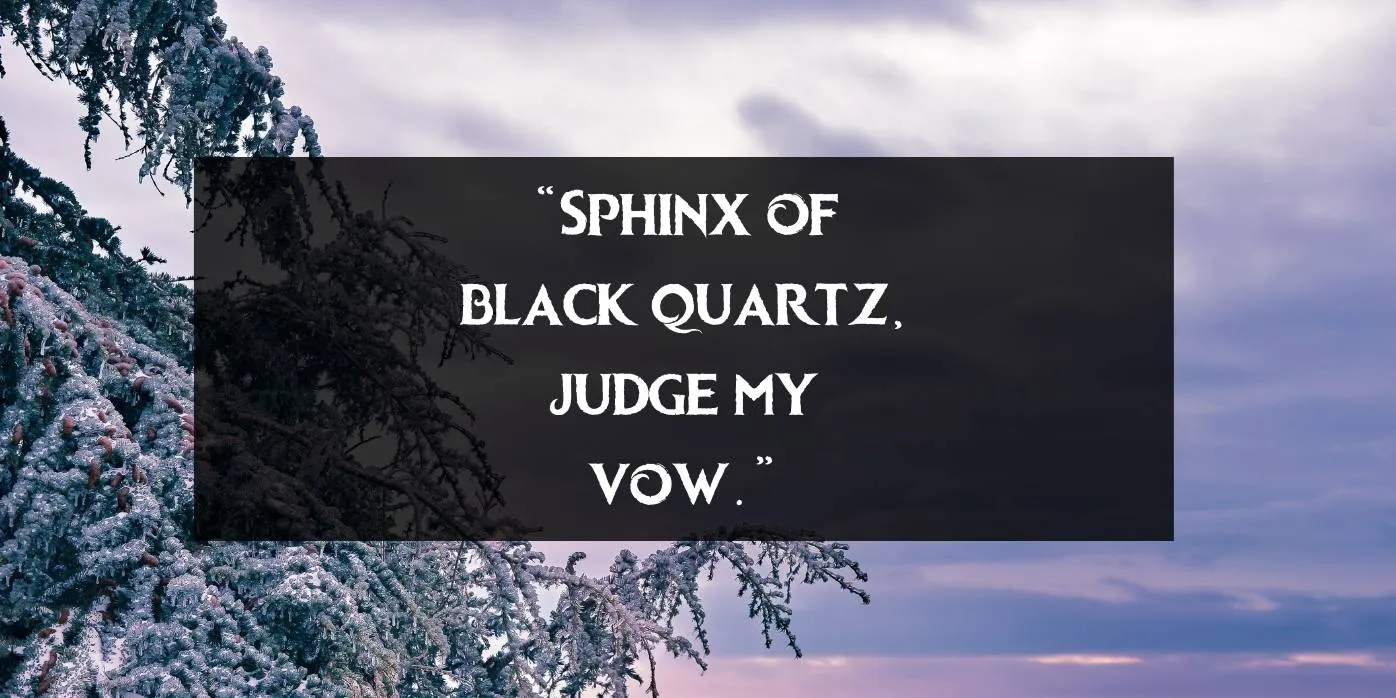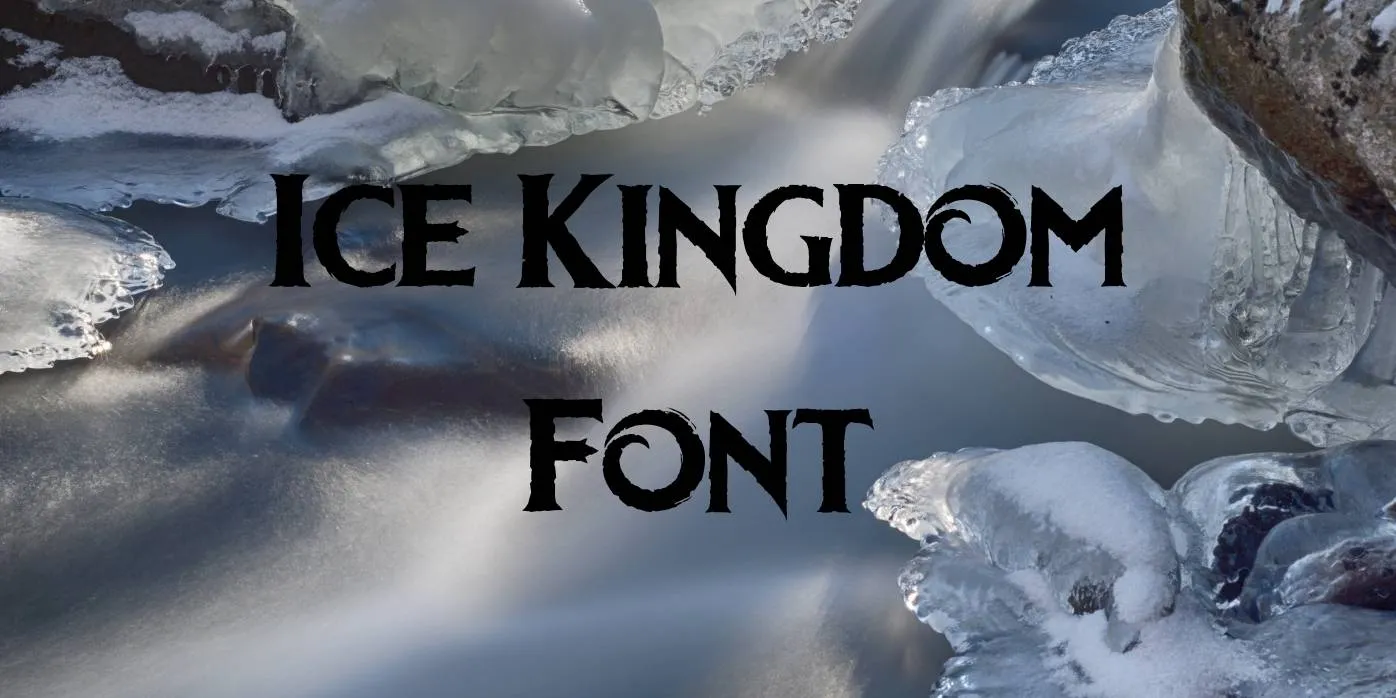
Ice Kingdom Font
Ice Kingdom Font is a beautiful and unique display font. This cute Font was created by Kustren and belongs to the Fancy typeface family. It’s perfect for headlines, logos, posters, and more. This stunning Font is available in two weights, Regular and Bold.
Each weight includes upper and lowercase characters, numbers, punctuation, and international characters. This amazing typeface has more than 200 special and classic characters. Its copy and paste function is best for text designs Lulo Clean Font is alternative to this typeface. It is the perfect choice for all your winter-themed designs.